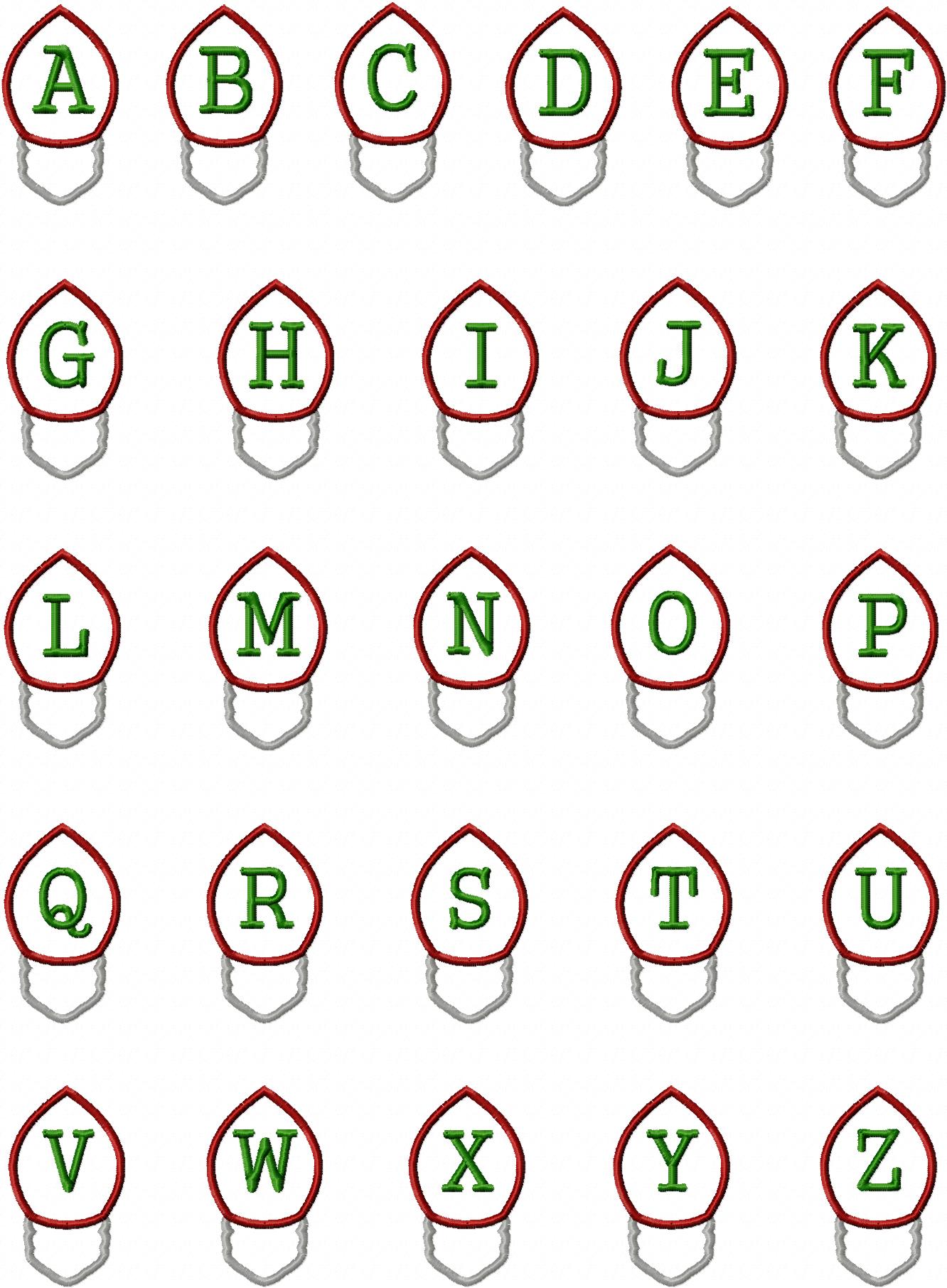
Brighten up any project when you personalize your designs with this amazing and FREE Machine Applique Lights Font Set. Works wonders in the Winter Holidays or use is all year round for birthdays or special occasion. Download the The Lights Machine Applique Font Set for free for one day only.